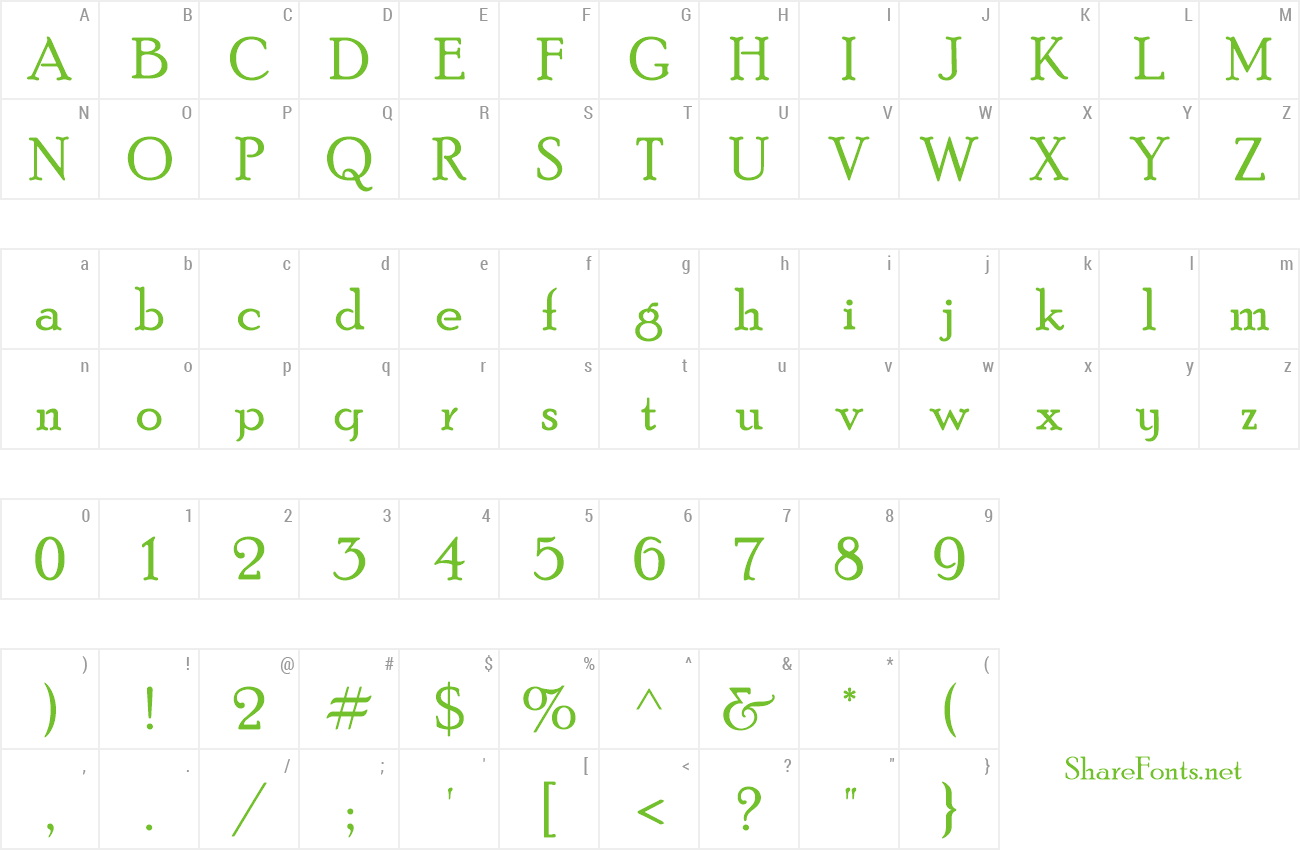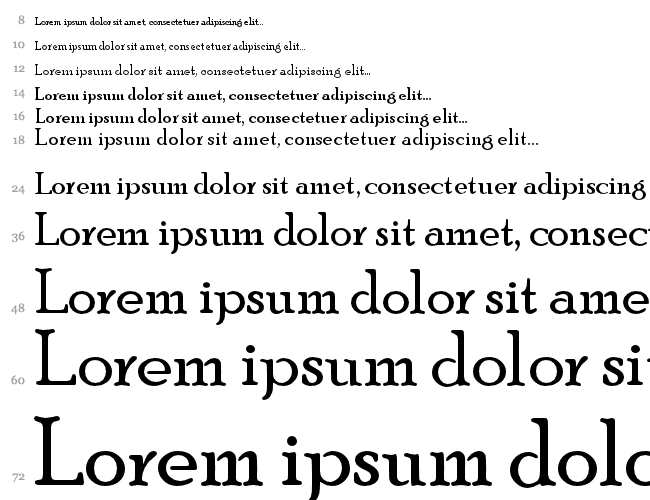
Poor Richards Font
Poor Richards Font - Web jan 20 2017 poor richard font 4.18/5 6970 votes, rated based on results identification download poor richard font. Web this elegant poor richard font was designed by the best graphic designer paul hickson and released by another. Web poorrichard regular | fonts.com.
Web this elegant poor richard font was designed by the best graphic designer paul hickson and released by another. Web poorrichard regular | fonts.com.